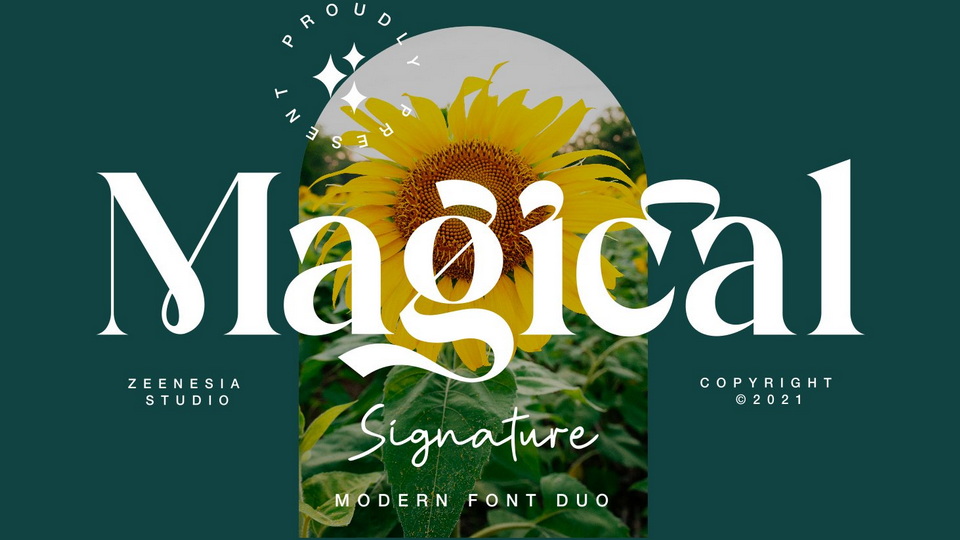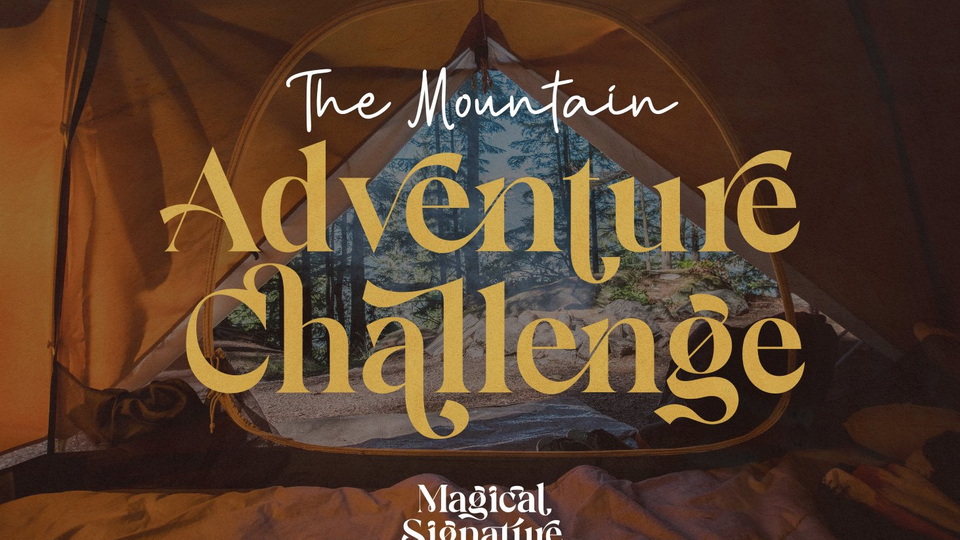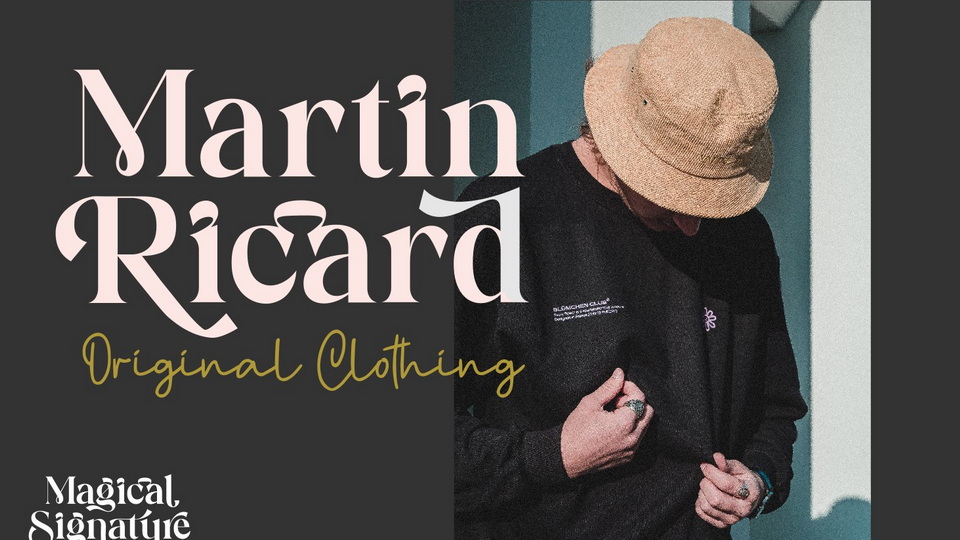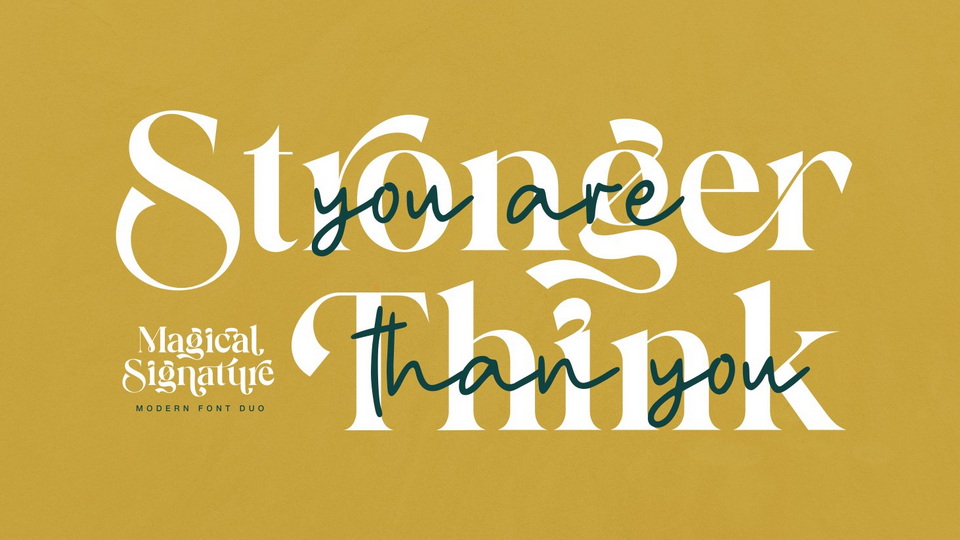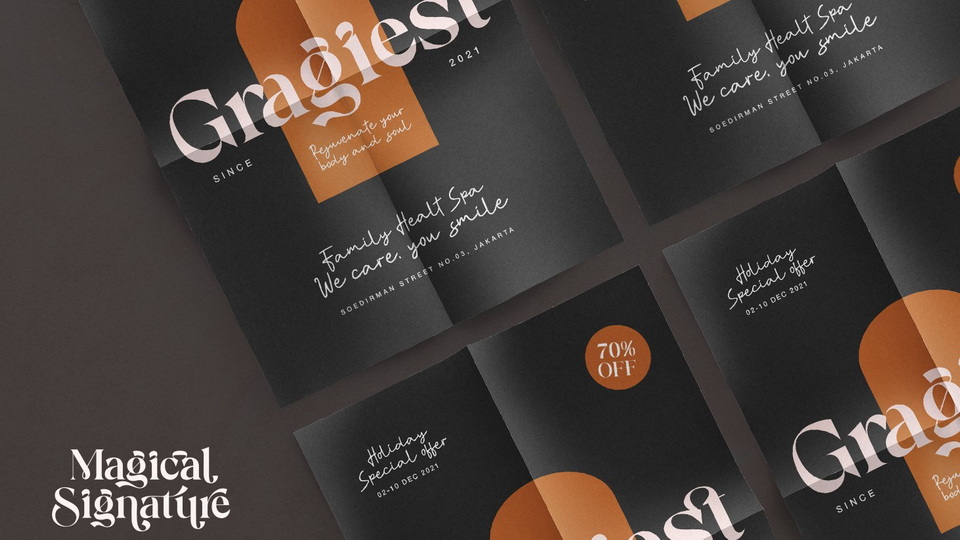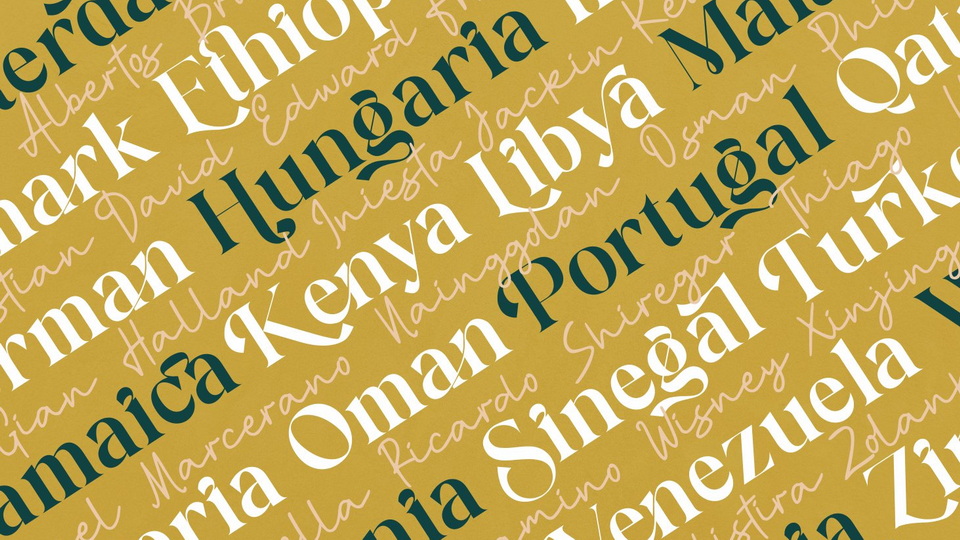
Magical Signature Font
Magical Signature is a chic and stylish typeface made carefully to make sure its premium quality and luxury feel. The font is suitable for your design project business, like logo branding, wedding invitation, typography wedding, quotes text, magazine, or anything do you want.